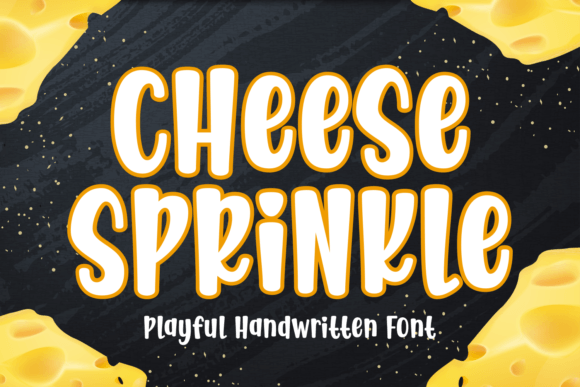
The Perfect Blend of Creativity: Introducing Cheese Sprinkle Font
Who hasn’t had that moment where they’re brainstorming ideas for a new project, and suddenly, the perfect font pops into their mind? For designers, it’s like stumbling upon a hidden treasure that elevates their entire concept. And that’s exactly what happens when you discover the enchanting Cheese Sprinkle Font.
This playful handwritten font is designed to add a dash of magic and wonder to any project. Whether you’re creating a logo, social media graphics, or children’s book illustrations, Cheese Sprinkle Font is the perfect accompaniment to bring your ideas to life. Its friendly touch and whimsical feel make it an invaluable asset for designers looking to add a personal touch to their work.
Cheese Sprinkle Font Key Features
- Font Family: Cheese Sprinkle Font is a custom-designed font family, making it unique and ideal for creative projects.
- Unique Characteristics: The font features a playful, whimsical design with a sprinkle of cheese-themed elements, adding a touch of fun and creativity to any project.
Designer Review: Cheese Sprinkle Font
As a designer, I have to say that the Cheese Sprinkle Font is a unique and quirky addition to any design project. ✨ The font’s playful and whimsical feel is perfect for creating eye-catching headlines and adding a touch of fun to your content. I love how the font’s irregular shapes and letterforms add a sense of hand-drawn charm, making it feel more human and less robotic.
However, as with any font, there are some limitations to consider. ⚠️ The font’s irregularity can sometimes make it difficult to read, especially in smaller sizes or in blocks of text. Additionally, the font’s quirky feel may not be suitable for all types of projects, such as formal or professional designs.
Here are some specific pros and cons to consider:
- ✨ Unique and playful feel
- ✨ Perfect for creating eye-catching headlines
- ✨ Adds a touch of whimsy to your content
- ⚠️ Can be difficult to read in smaller sizes
- ⚠️ May not be suitable for formal or professional designs
Overall, I think the Cheese Sprinkle Font is a fun and creative addition to any designer’s toolkit. While it may not be suitable for every project, it’s a great choice for designs that need a bit of whimsy and personality. With a little bit of careful planning and placement, this font can add a lot of visual interest and fun to your designs.
To get the most out of the Cheese Sprinkle Font, try the following tips:
- Use it for playful and whimsical designs.
- Pair it with bold and bright colors to create a fun and energetic look.
- Experiment with different font sizes and combinations to add visual interest.
The Cheese Sprinkle Font is ideal for:
- Food-related designs, such as menus and packaging.
- Playful and creative social media graphics.